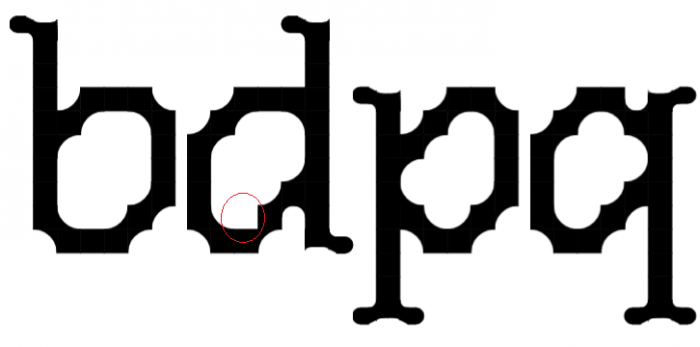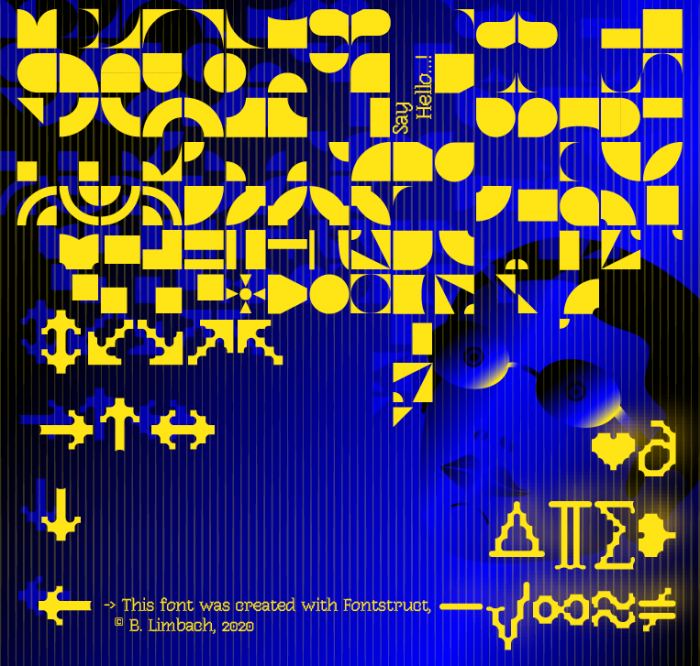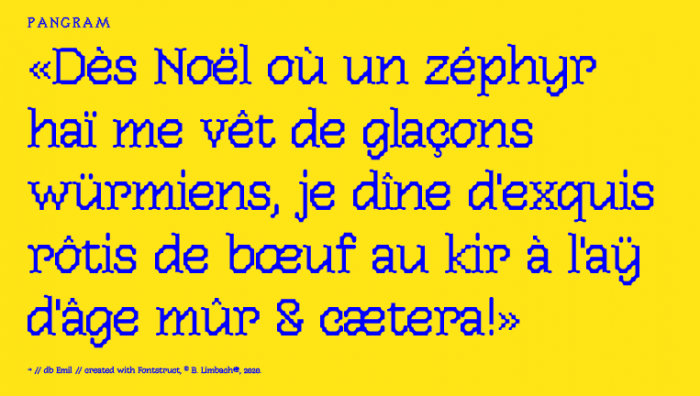
• Emil has a sympatic character, even if he has his little edges and corners. Nevertheless, Emil is not too eccentric.  It' s possible to work with him and maybe Emil will go one step further towards italics...?
Is it just me or did you miss a brick on the lowercase D?
Other than that, it's still a pretty nice font… 10/10
@BWM_excellent eye! Thank you, I will correct that immediately.
Dear Maestra: beautiful and very interesting font, as usual in yours. I'm amazed at your bold and imaginative solutions for serifs and kerning, and about glyphs, I love their thorny asymmetry, especially on letters like O and o. Great work. And your final dingbats are so cute. PS: I think another curved brick has been forgotten at the bottom of your z.
oh yes, you are right! ; ))
Another little detail: it seems like your Ð has missing its horizontal stroke. I'm right?
Congratulations, Maestra! Nice pangrama. Don't forget the missing brick in your z. ?
as well as ž, as there is a brick missing there too
The angles on the b d p q give this lots of sass and character. Love this.
Why does this font use a "nasalised" heart?
@MetrikEnzyme It isn't a nasalized heart, it is a fleuron… More info about it on this Wikipedia page
But it looks like one!